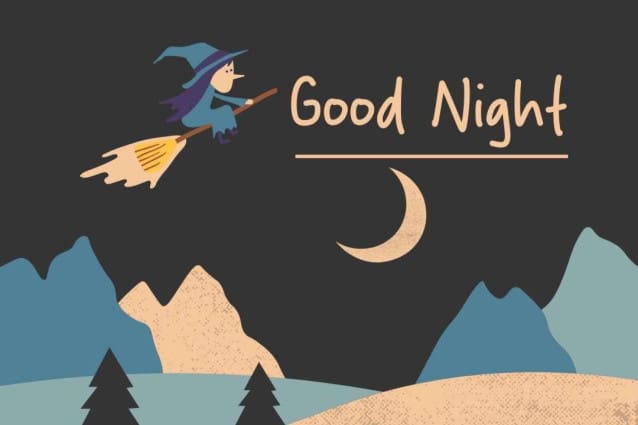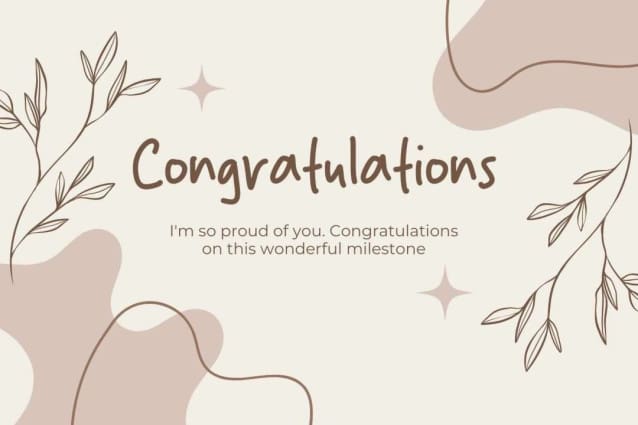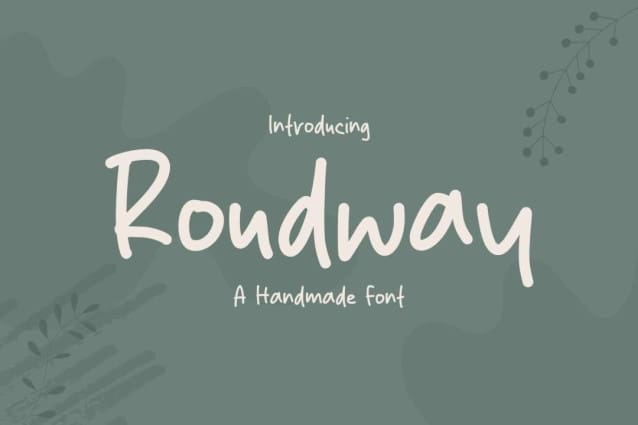
Roudway Font
Roudway Font is a simple and friendly handwritten font. Its natural and unique style makes it incredibly fitting to a large pool of designs. The only limit is your imagination!